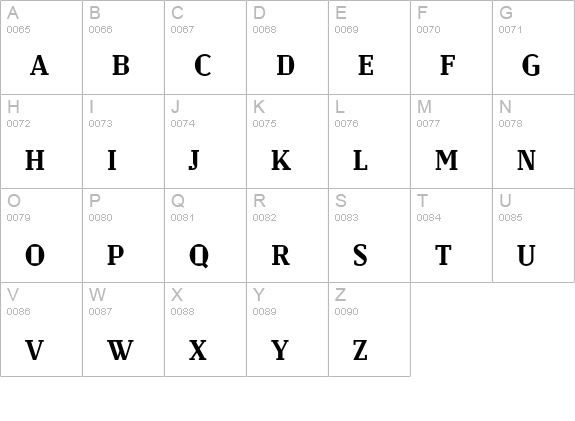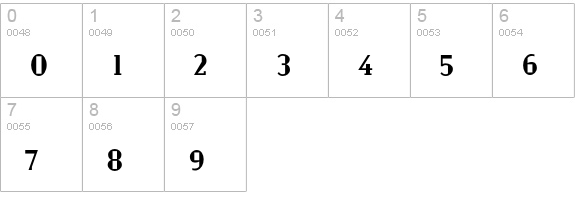
Zenith font is a modern and elegant typeface that exudes sophistication and style. Its sleek lines and balanced proportions make it perfect for a wide range of design projects, from branding to editorial layouts. The Zenith font family includes a variety of weights and styles, allowing for versatility and creativity in your designs. What sets Zenith font apart is not only its aesthetic appeal but also its accessibility - it is completely free to download at FontsMarket.com. This means that you can enhance your projects with this high-quality font without any cost, making it a valuable resource for designers and creatives alike. Whether you are working on a website, a poster, a logo, or any other design project, Zenith font is sure to bring a touch of elegance and professionalism. Download it for free today and elevate your designs to new heights with Zenith font.